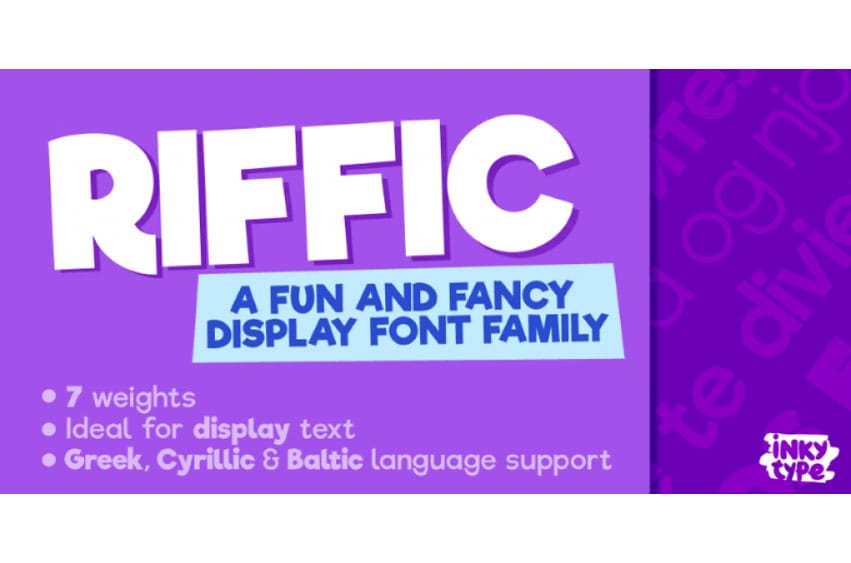
Riffic Font is a display sans, hand drawn and kids font family created by Nini Prower.
This typeface has seven styles and it was released by InkyType company.